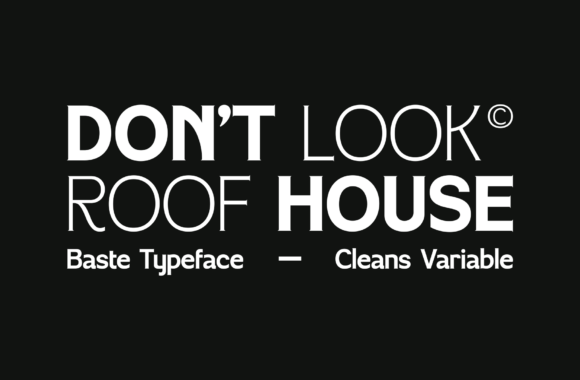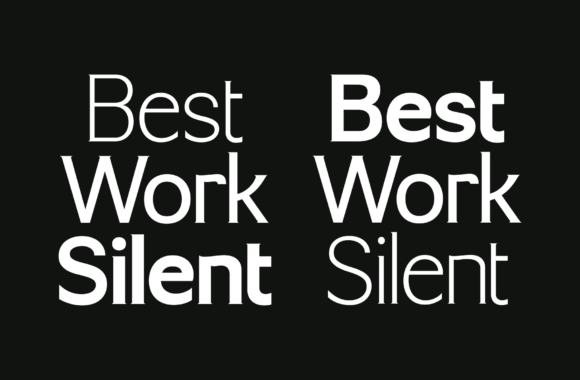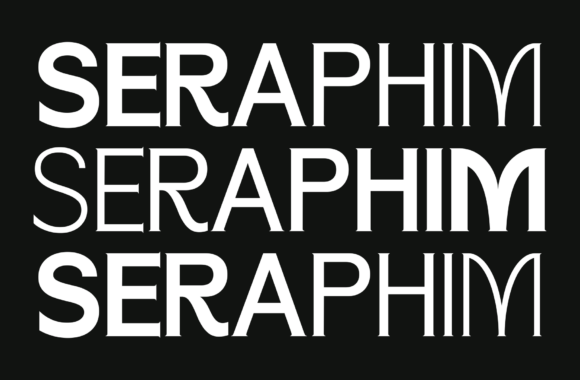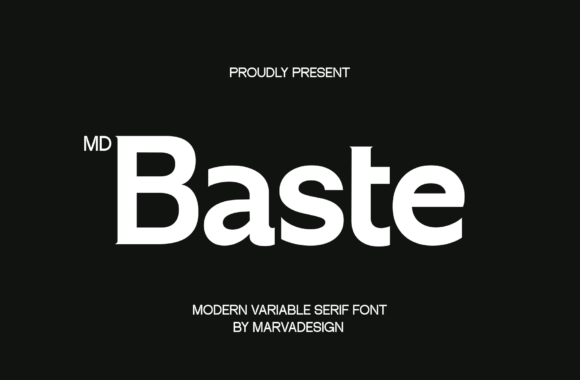
Introduction to Md Baste Font
Introducing Md Baste is an elegant serif font, designed to evoke a sense of sophistication and refinement.
Its semi-condensed form lends itself particularly well to headlines, titles, and other prominent text elements, balancing style with practicality The font offers a versatile range of weights through its variable options, including Thin, ExtraLight, Light, Regular, Medium, SemiBold, Bold, ExtraBold, and Black.